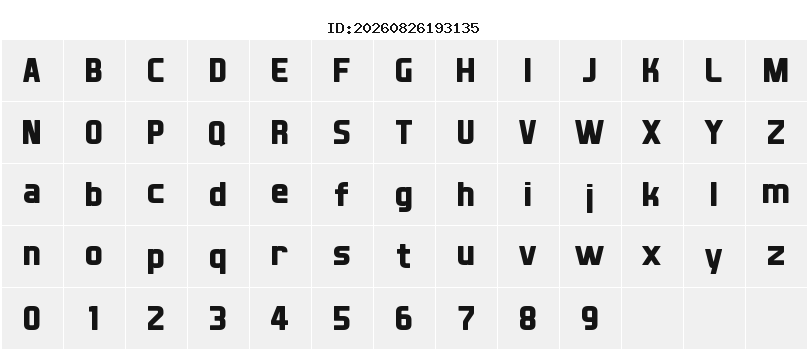
XBall Preview
• Font Name: XBall
• Font ID: XBall:Version 1.00
• Full Font Name: XBall
• Version: Version 1.00 June 6, 2013, initial release
• PostScript Name: XBall
• Designer: Neale Davidson
About XBall.ttf
XBall.ttf is a modern, elegant sans-serif font designed for ultimate readability and visual harmony. Perfect for branding, headlines, web design, and print materials.